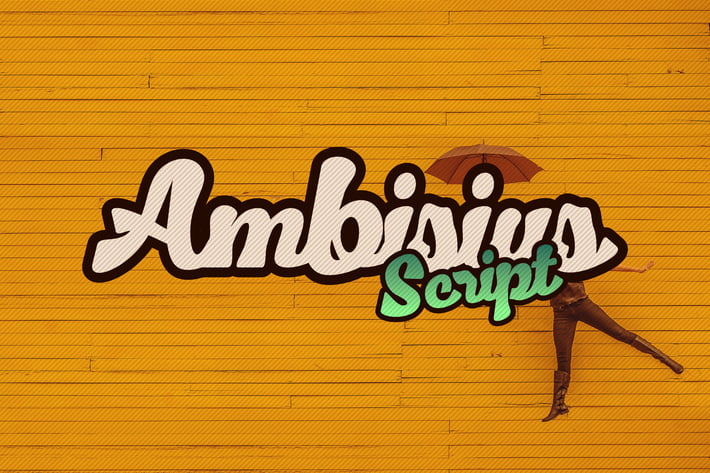
Ambisius Script Font
aqrstudio
Ambisius Script Font that contain lowercase, uppercase, symbol, and also support multi language. There’s a lot ligatures in this font. Ambisius Script Font also comes with ligatures, stylistic alternates and many more. this font suitable for fashion, branding, catalog and other design what you want.